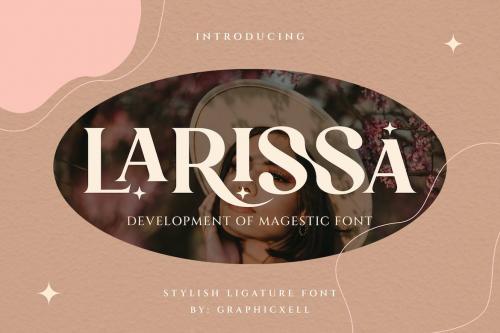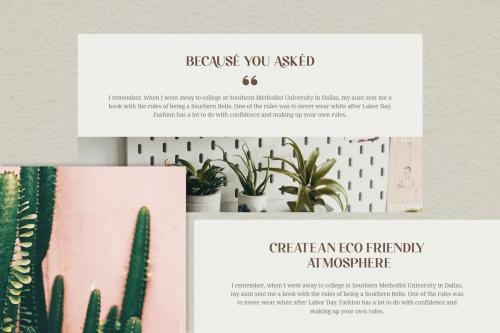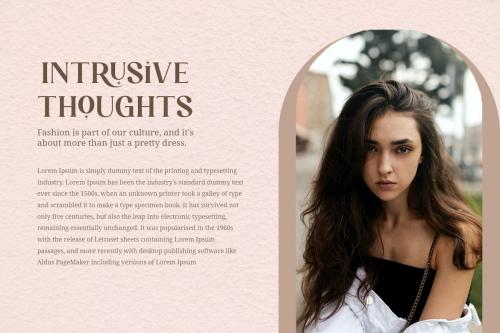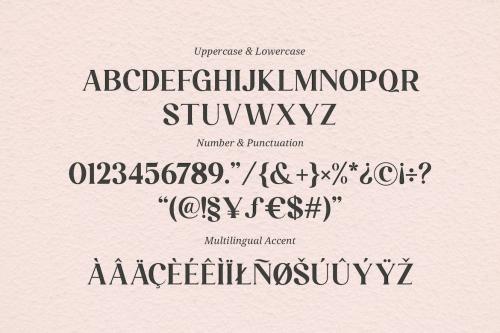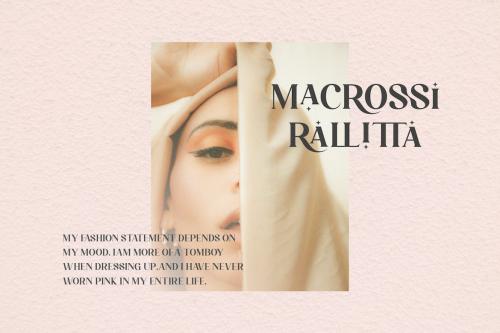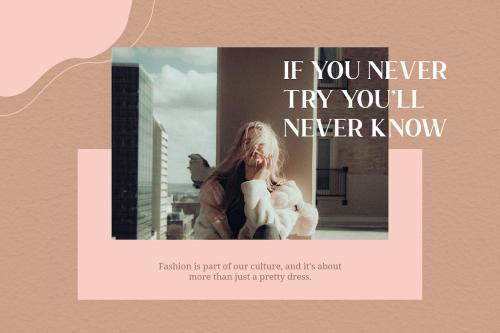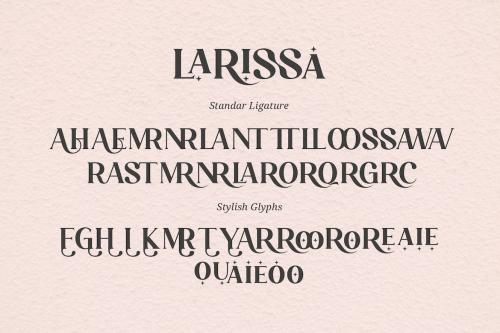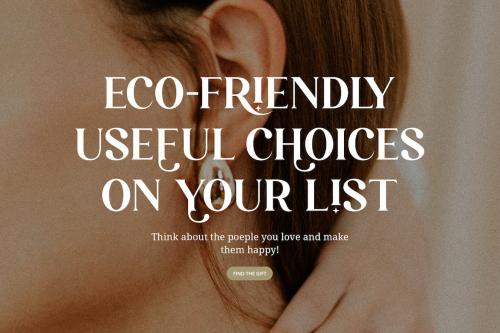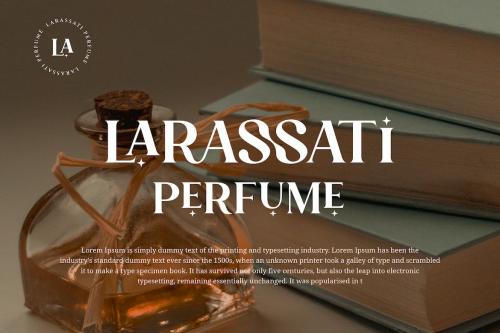
拉斯蒂萨 - 精致 ligatur 字型
Larissa - Stylish Ligatur Typeface
Larissa Stylish Ligature Typeface, inspired by the famous minimalist logo perfect for the purposes of designing templates, brochures, videos, advertising branding, logos and more.
+ Standard glyphs
+ Ligatures
+ International Accent